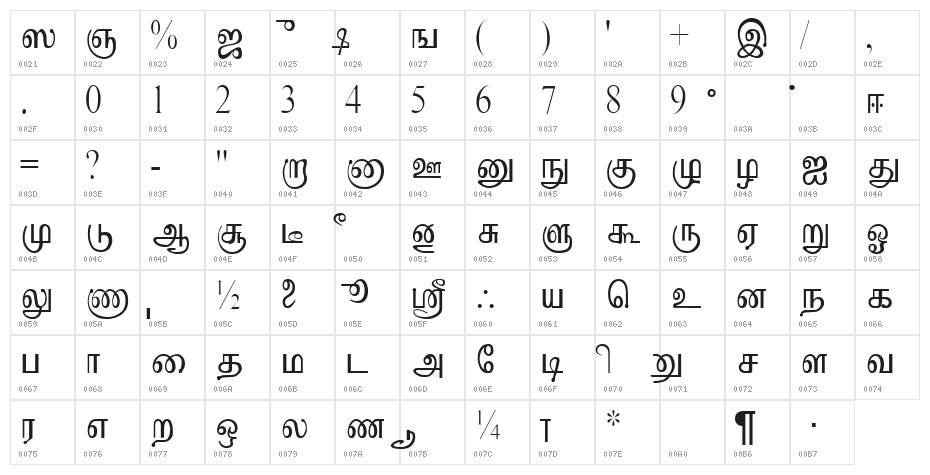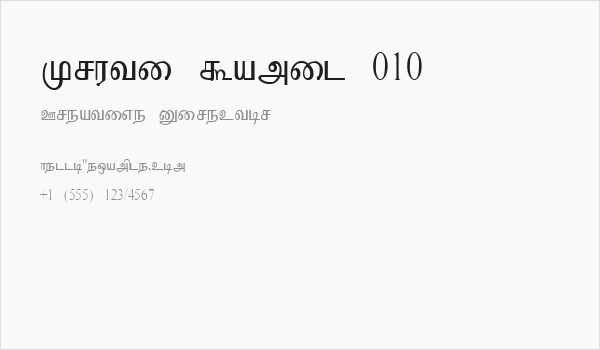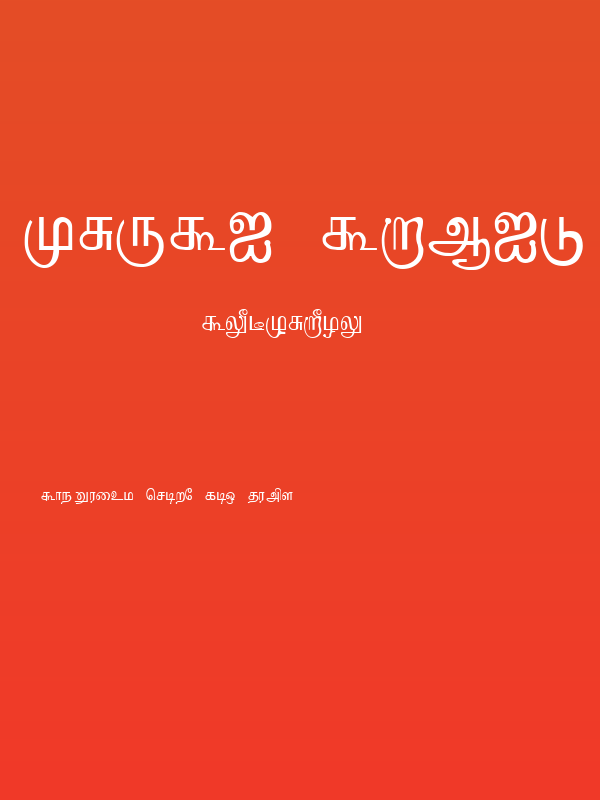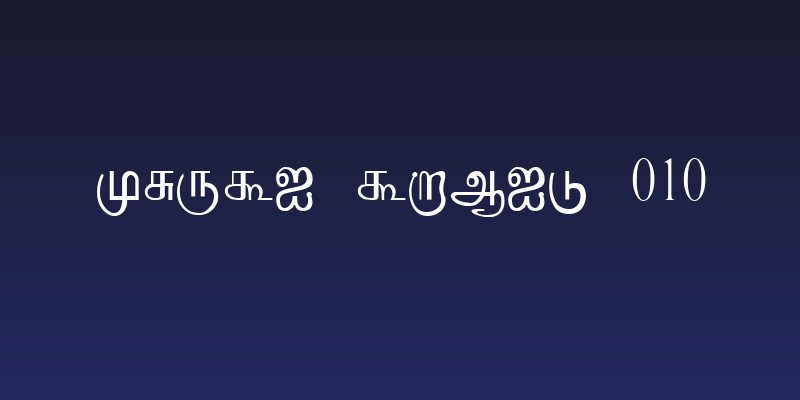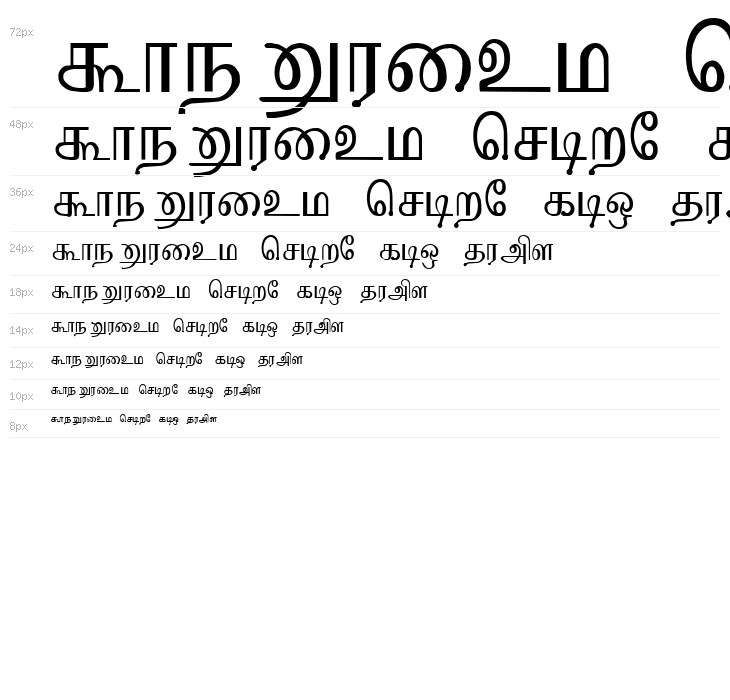
Kruti Tamil 010 Font
Kruti Tamil 010 Description
This font features a blend of traditional and modern elements, characterized by its elegant and flowing script. The characters are distinct and well-formed, with a moderate stroke contrast that enhances readability. The Tamil script is presented with a graceful curvature, making it suitable for both formal and informal contexts. The numerals are clear and consistent with the overall style, offering a harmonious look. Special characters are thoughtfully integrated, maintaining the aesthetic balance of the font. This typeface is versatile, offering a sophisticated yet approachable feel.
| Overall Style | Classic |
| Use Case | Headlines, Body text, Logos |
| Proposed Projects | Ideal for cultural publications, educational materials, branding for traditional products, and elegant invitations. |